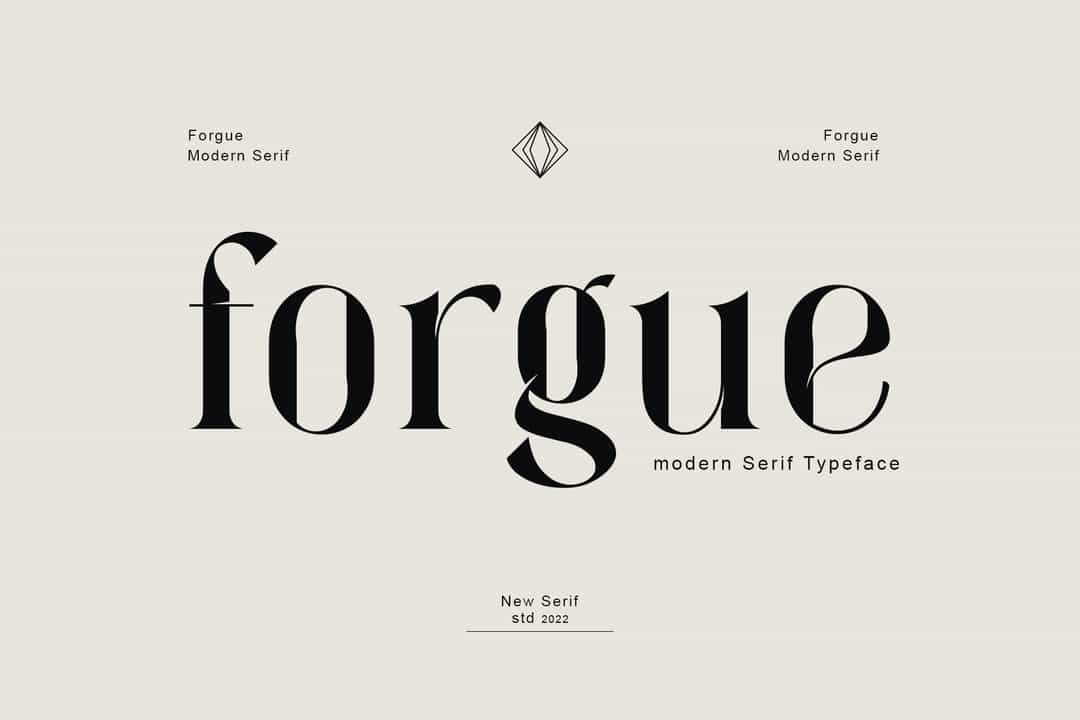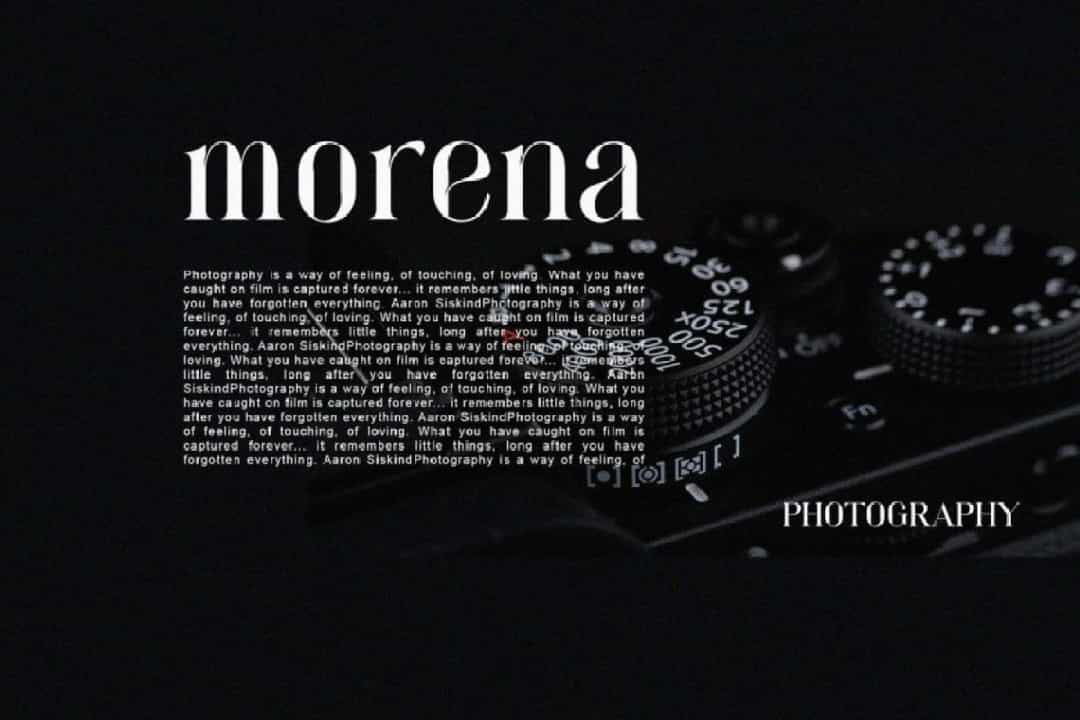
Forgue is an elegant, timeless serif font with timeless beauty that makes an impressionful design statement. Ideal for creating eye-catching branding, logos and quotes; each letter offers its own distinctive appearance that adds impactful flair.